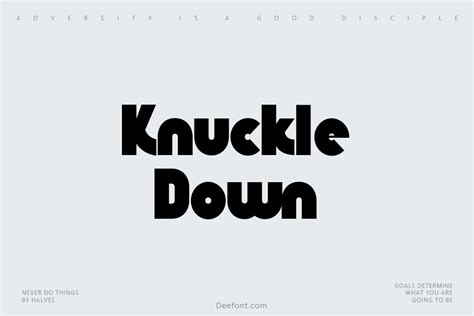
Knuckle Down Font. Sep 25, 2022 256 6. It will add a cool, distinctive voice to your message.
It will add a cool, distinctive voice to your message. Sep 25, 2022 256 6. Web knuckle down is a curved headline font with a wonderful throwback vibe.
Sep 25, 2022 256 6. Web knuckle down is a curved headline font with a wonderful throwback vibe. It will add a cool, distinctive voice to your message.